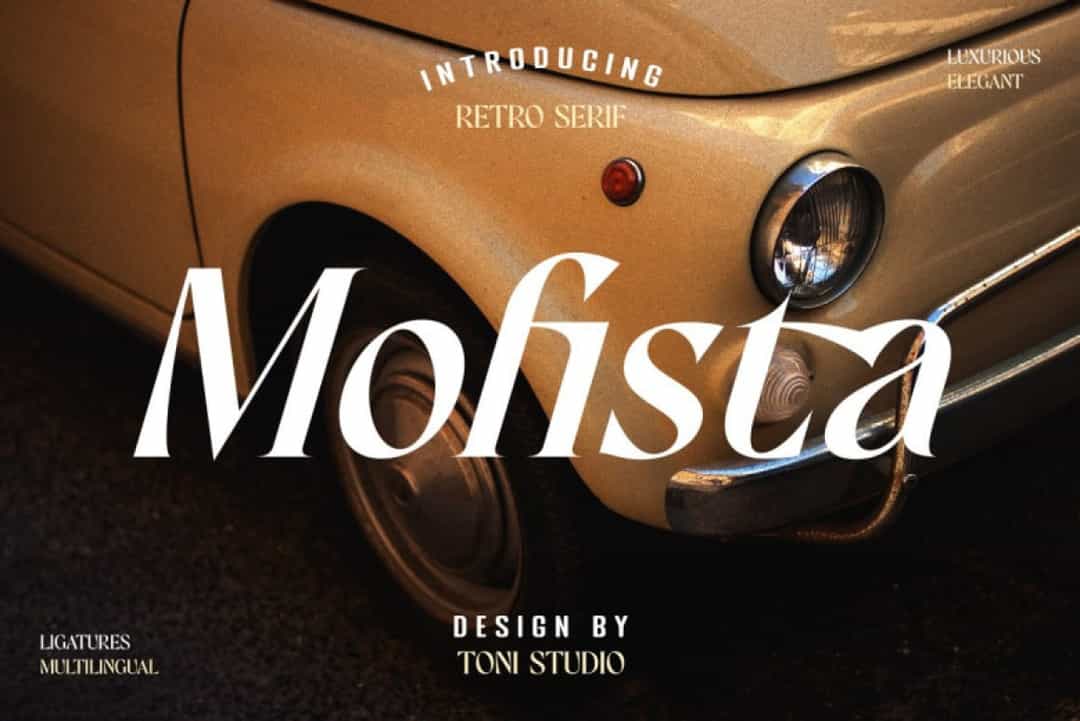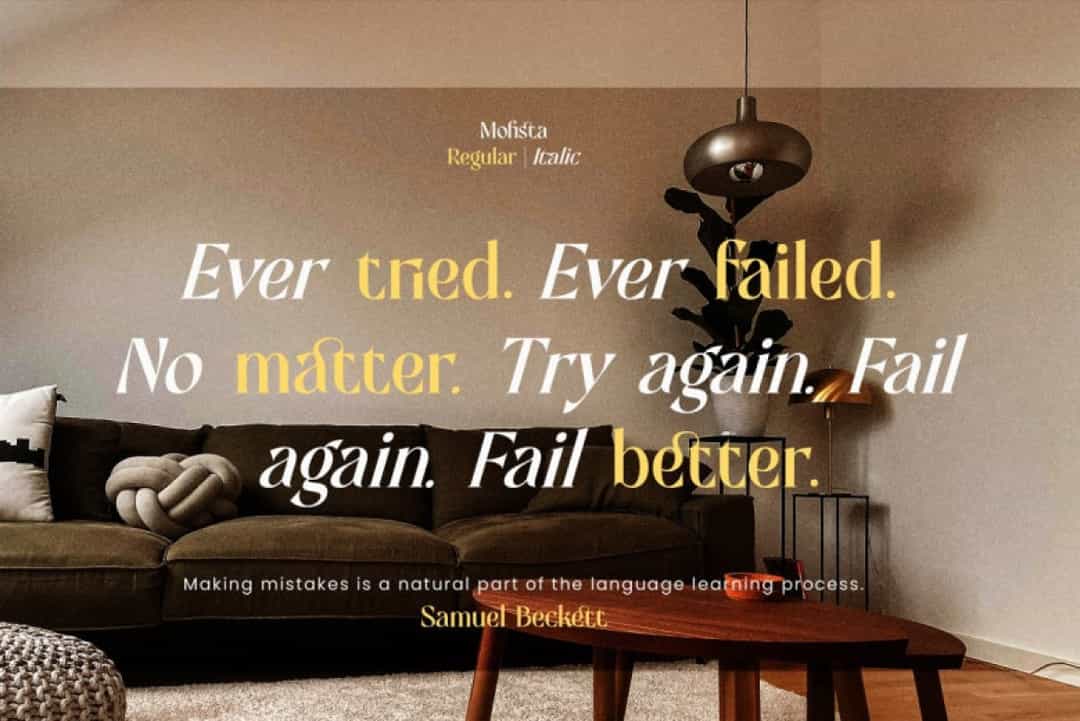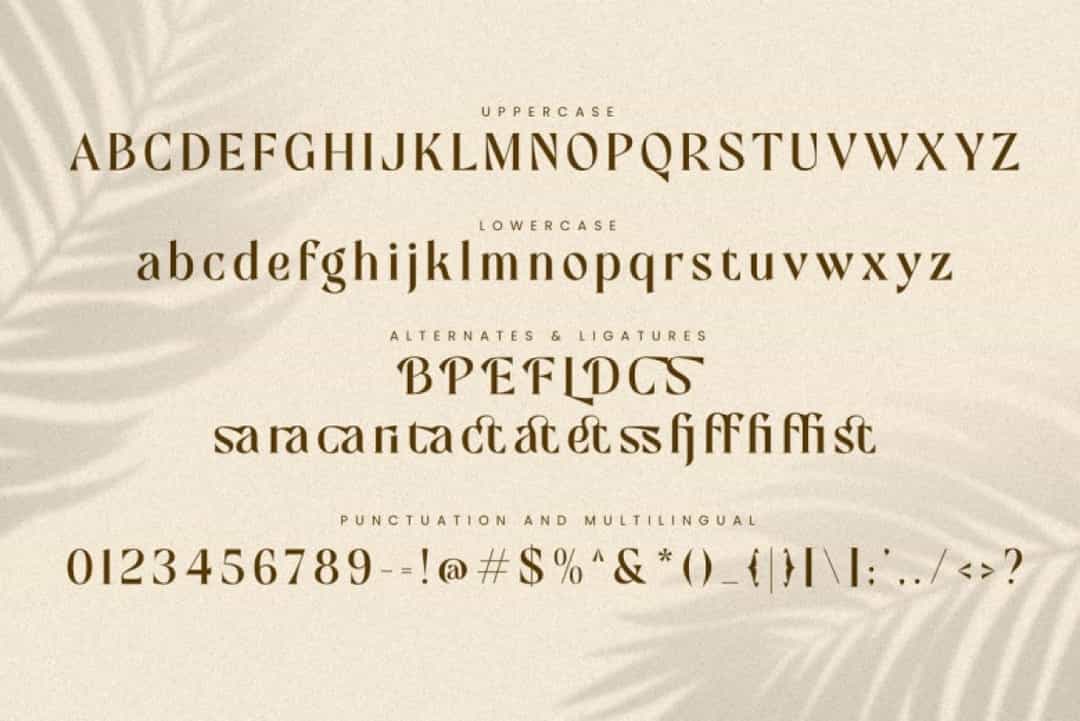
Mofista is an elegant contemporary serif font designed to pay tribute to classic serif typography from days gone by. Offering multiple alternatives that will help make your logo or presentation even more striking! Mofista font can make any piece of work look vintage chic, stylish and elegant.